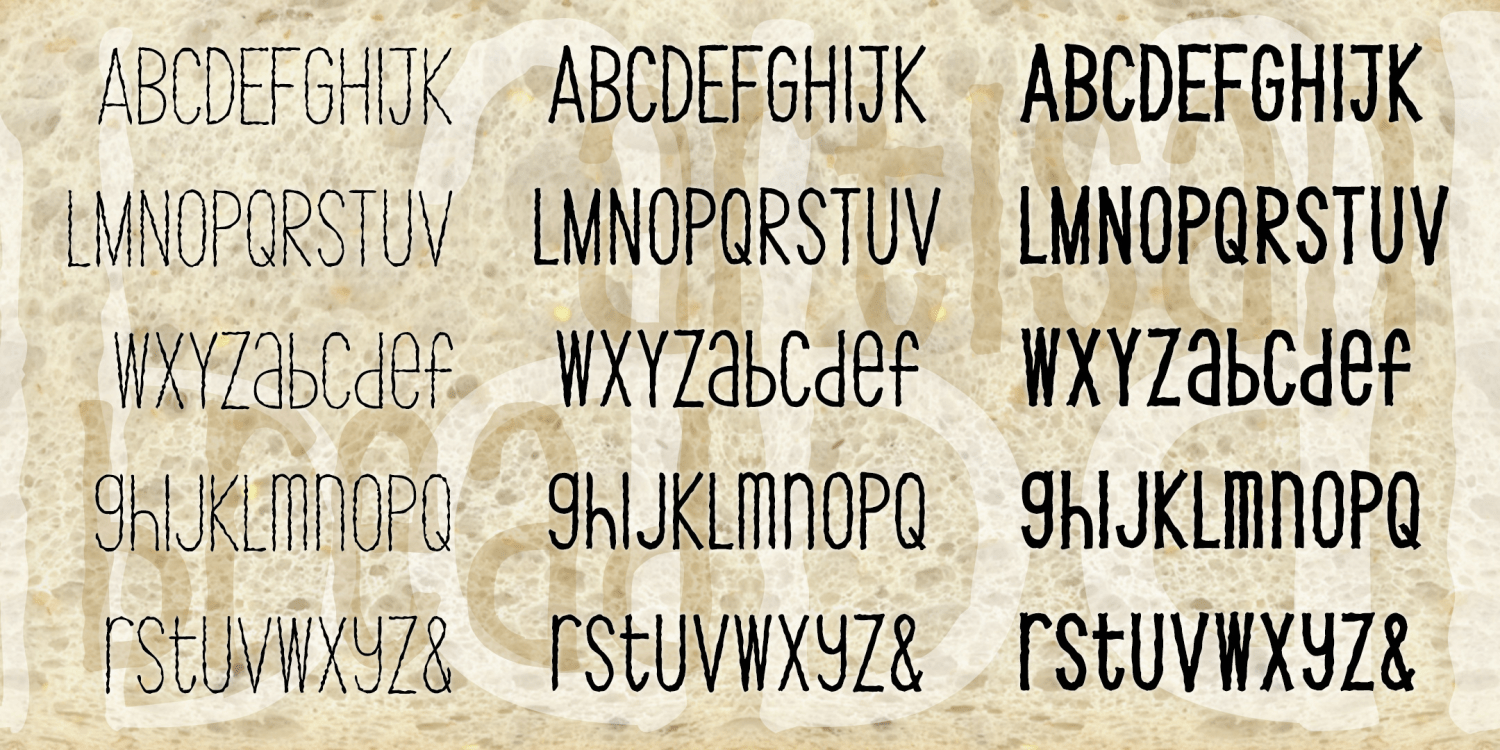
HomeFont BrosHandwrittenArtisan Bread HandwrittenSpecial EffectScripts: Casual Artisan Bread FacebookXPinterestWhatsApp 1 of 1 About Artisan Bread has an earnest and informal feel. It provides a whimsical mixture of upper- and lowercase with a bumpy "organic" texture. Available in three weights.  DOWNLOAD ON FONT BROSThis font is sold and delivered by Font Bros. Font Canyon may earn a commission if you buy through this link. People also explored Twice Spoiller Font Fast Lane Bakk Trieng Day Drinking Font Hey Yellow Font Playstick Font Yerana Font Holliwing Font Antichona Font 418 0 TagsArtisan Bread Font Previous articlePAG LibertaNext articleBodoni Classic Stencil LEAVE A REPLY Cancel reply Comment: Please enter your comment! Name:* Please enter your name here Email:* You have entered an incorrect email address! Please enter your email address here Website: Save my name, email, and website in this browser for the next time I comment. Personal Use Free Cintya Personal Use Free Read more about this font Wallabys Junior Personal Use Free Read more about this font Waverly Date Personal Use Free Read more about this font Hello Sarrah Personal Use Free Read more about this font BLOG Free Fonts Risk: Why Free Fonts Can Be Dangerous for Designers Free Fonts Risk: Why Free Fonts Can Be Dangerous for Designers Using free fonts is a common practice in web and graphic design. However, the... The 10 Best Handwriting Fonts to Add Personality to Your Designs How to Cut Any Font on Cricut: Convert a Font to SVG (Free) How to Install and Use Fonts on Windows, macOS, and Web Projects